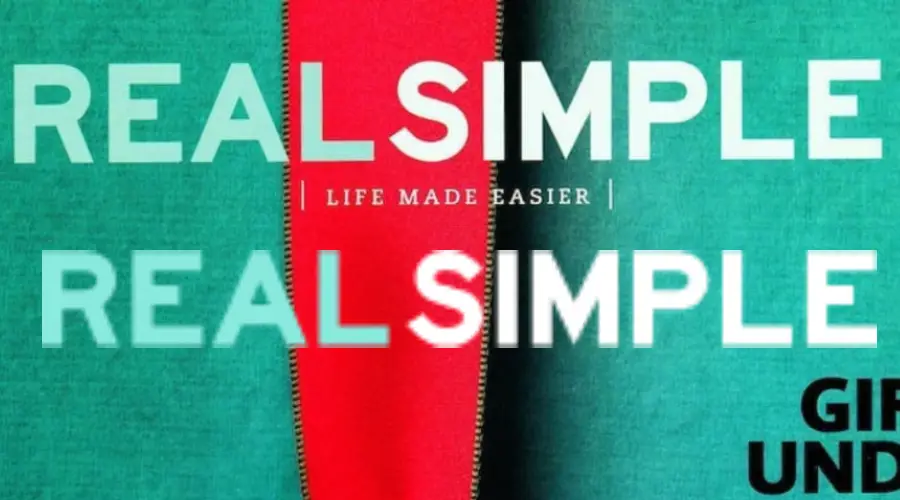
Real Simple, a monthly women’s lifestyle magazine, utilizes the Interstate Bold typeface for its nameplate. Interstate, designed by Tobias Frere-Jones, is a neo-grotesque sans-serif typeface inspired by the U.S. Federal Highway Administration’s signage alphabets.
Similar Fonts to Real Simple Font
If you’re looking for fonts that resemble the Real Simple Font, here are some excellent alternatives:
Interstate Bold by Tobias Frere-Jones: This font shares a similar clean and modern sans-serif style, making it a great alternative for logos or branding.
Sweet Sans Bold Small Caps by Sweet Fonts: Known for its elegant and professional look, this font mirrors the simplicity and sophistication of Real Simple Font.
SAA Series EM Std Standard D by URW Type Foundry: This font offers a similar vibe with its balanced and minimalist design, suitable for lifestyle and branding purposes.